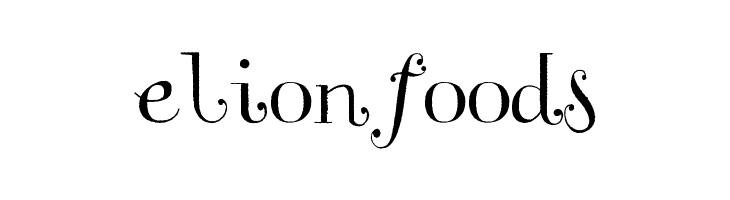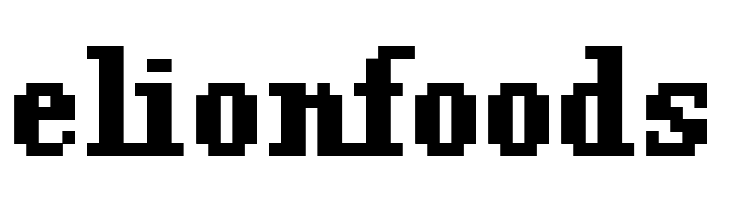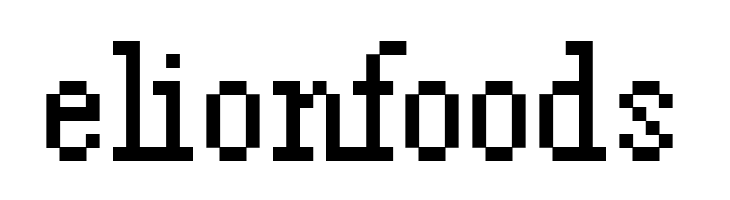
A bold, distressed font with a grunge aesthetic.
A bold, distressed font with a grunge texture and vintage appeal.
A decorative script inspired by Tolkien's Elvish writing, featuring elegant, flowing characters.
A bold, decorative script inspired by the Tengwar script with intricate and flowing characters.
An elegant, bold, and italic script font with a mystical, calligraphic style.
A decorative script with flowing, ornate characters inspired by elvish writing.
A modern, geometric font with clean lines and a structured appearance.
A bold, distressed font with a grungy, textured appearance.
A lively, cursive script font with smooth, flowing lines and a handwritten appearance.
A decorative and abstract font with geometric shapes and playful elements.
A classic blackletter font with intricate, sharp angular strokes and a medieval aesthetic.
A whimsical, hand-drawn font with tall, narrow letters and playful curves.
A playful, hand-drawn font with irregular strokes and a whimsical style.
A decorative font with elongated, narrow letterforms and high contrast strokes.
A whimsical, decorative font with swirling embellishments and a fairy-tale style.
A bold slab serif font with strong, block-like serifs and a vintage-modern appeal.
A bold, oblique slab serif font with strong, dynamic strokes.
Hand-drawn furniture and decor illustrations as font glyphs.
Illustrative dingbat font with diverse pictorial scenes and objects.
A playful, handwritten font with a whimsical and friendly appearance.
A whimsical and playful font with elegant curves and decorative elements.
A pixelated, retro-style font with a blocky, grid-like appearance.
A pixelated, retro-style italic font with a nostalgic digital aesthetic.